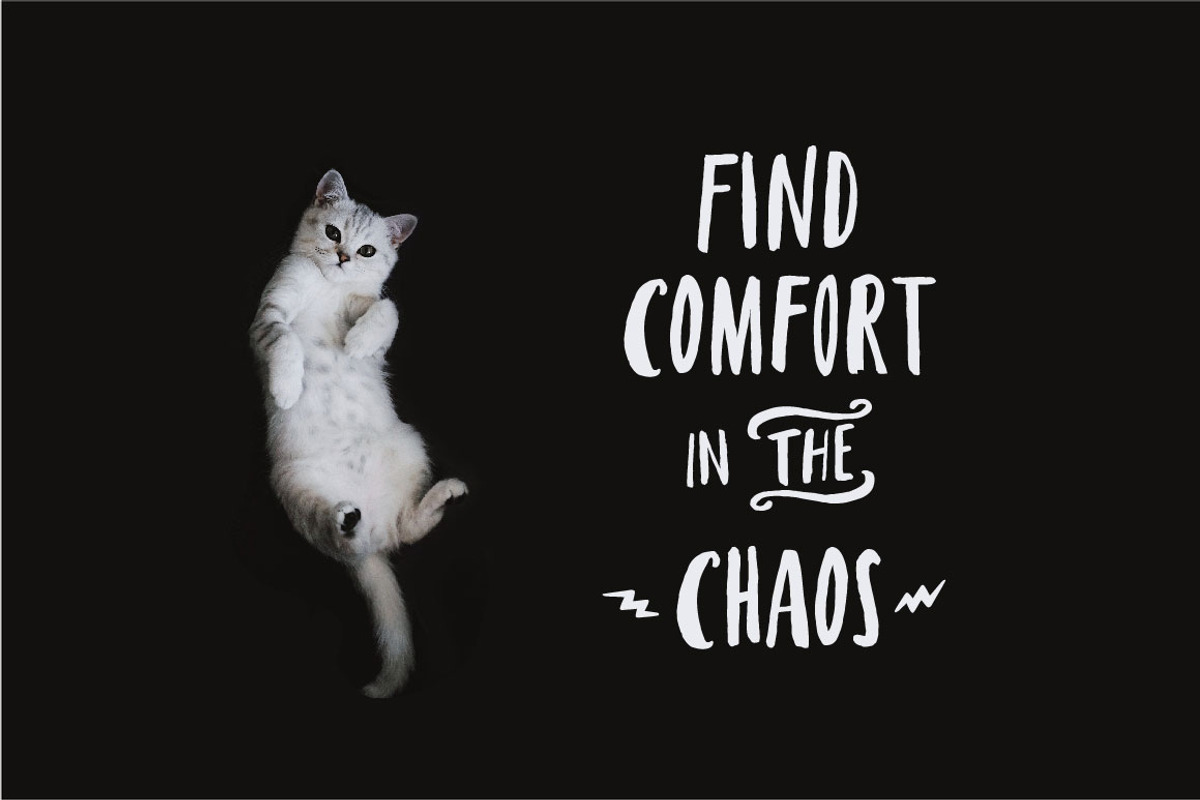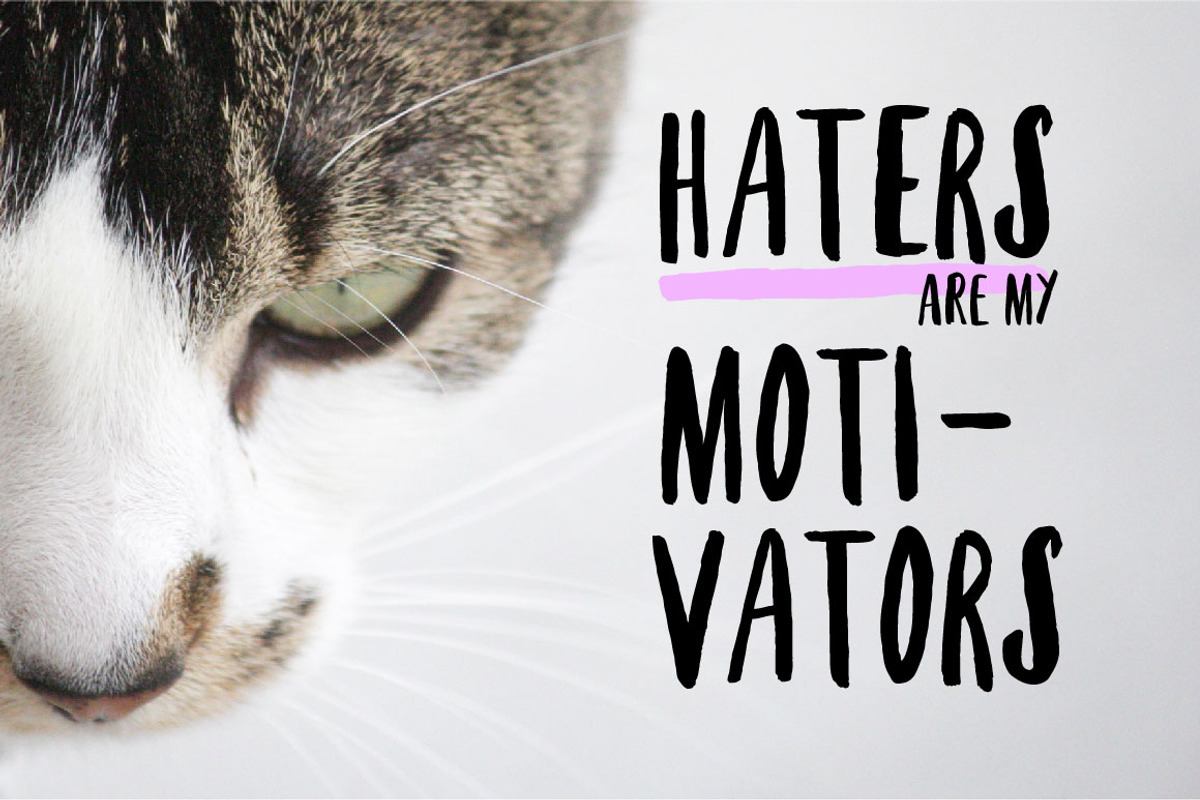
Cat In My Head
Cat in my head is completely handcrafted typeface witch looks organic with contextual alternates. Cat in my head typeface comes with an extra doodle set in glyph set. It includes only basic latin characters doesn't support foreign languages, you can see glyph set in third slide.